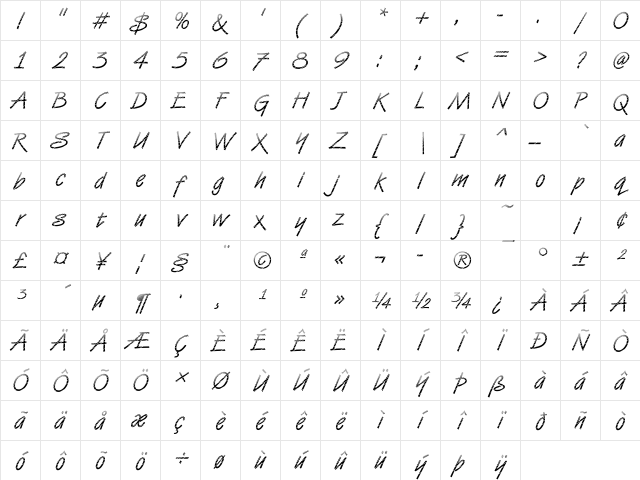
VanDijk20 Becker Regular Free Font
VanDijk20 Becker Regular
Complete VanDijk20 Becker Regular glyph index. Displaying only characters natively supported by VanDijk20 Becker Regular font.
Design Context for VanDijk20 Becker
VanDijk20 Becker is a composed and adaptable typeface that performs quietly and consistently across a wide range of design contexts.